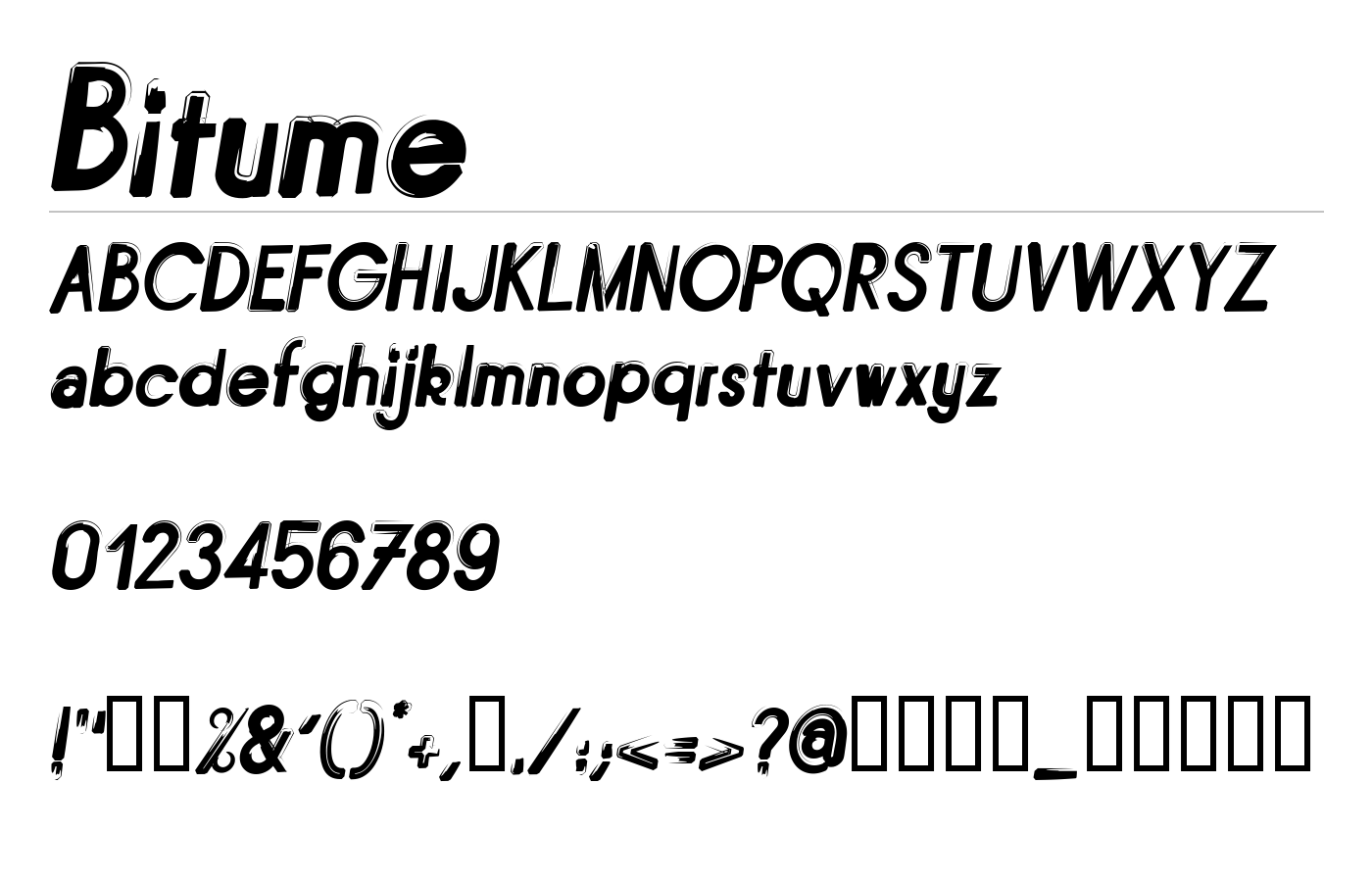
Bitume is a bold, condensed sans serif font with a dynamic, slightly italicized style that combines geometric and playful letterforms. Its high contrast strokes and subtle layering effect give it an energetic and modern feel, making it ideal for striking headlines, branding, and packaging that seek a youthful and adventurous vibe. This font works well when you want to grab attention with a strong, stylish personality.
Bitume Font